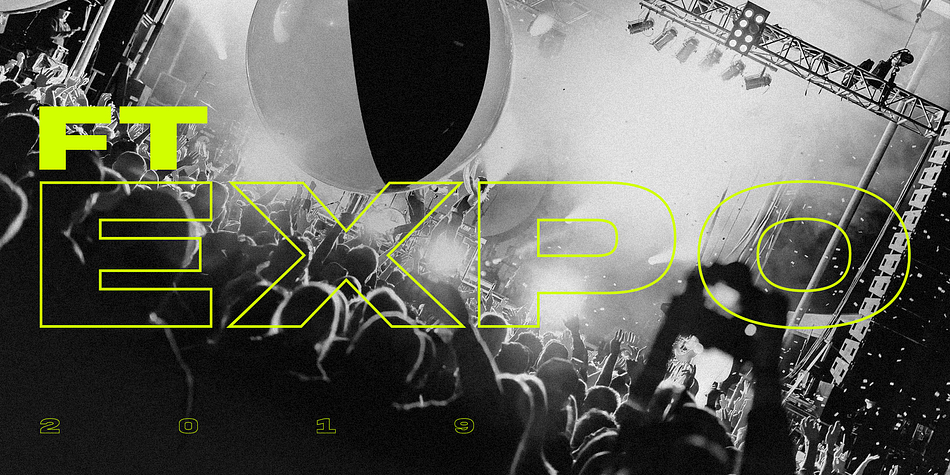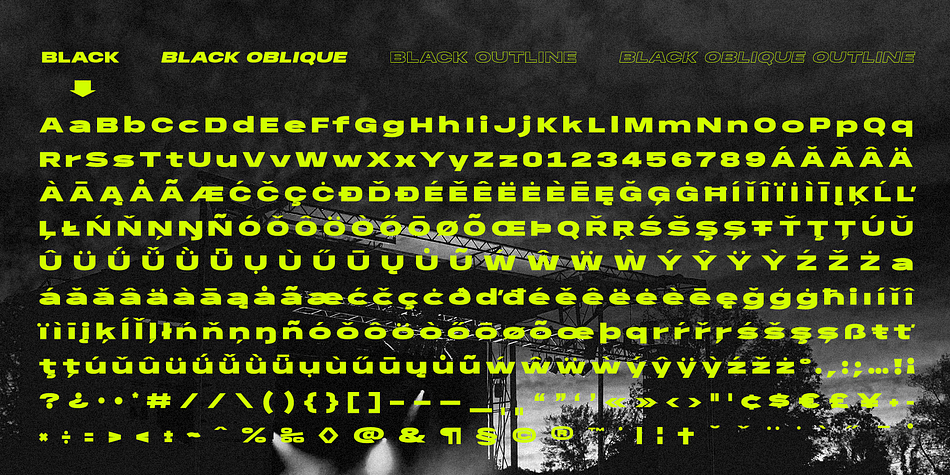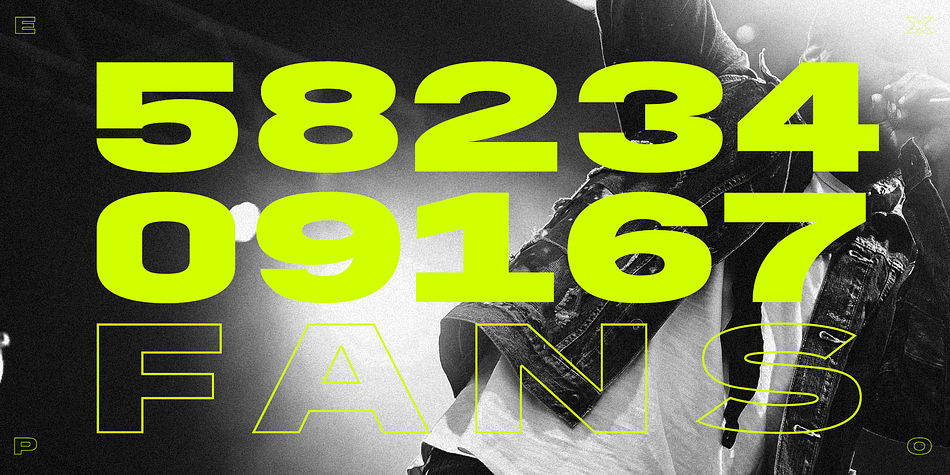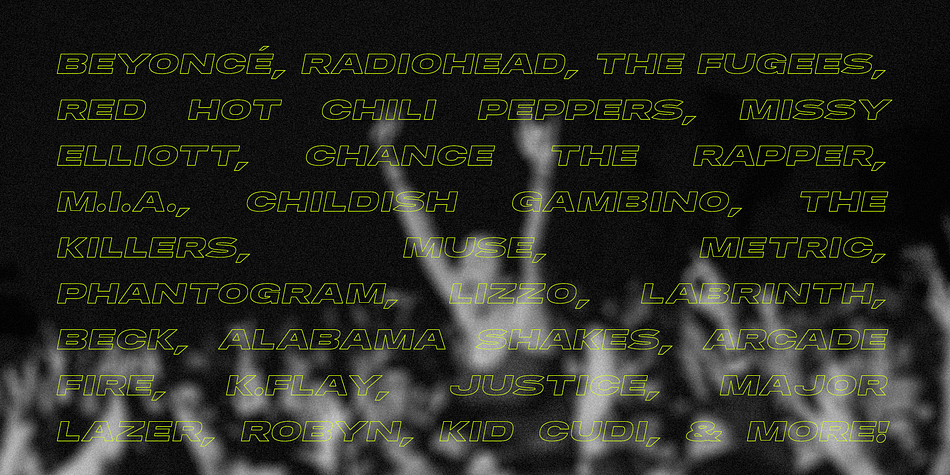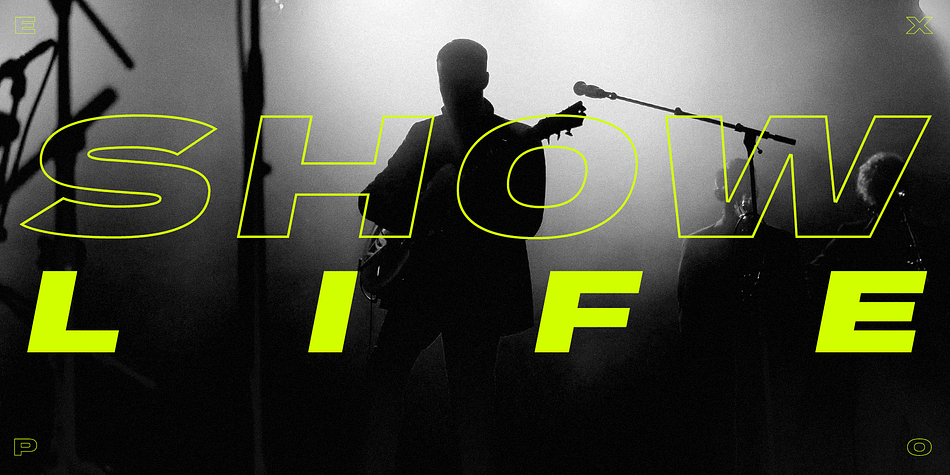
Designed by Tyler Finck, FT EXPO is a display sans font family. This typeface has four styles and was published by Tyler Finck.
Four styles of an ultra bold, extended display face! FT EXPO is loud, clean, and memorable. The outline style contains a hollow interior, letting the background through clear stroked letters.